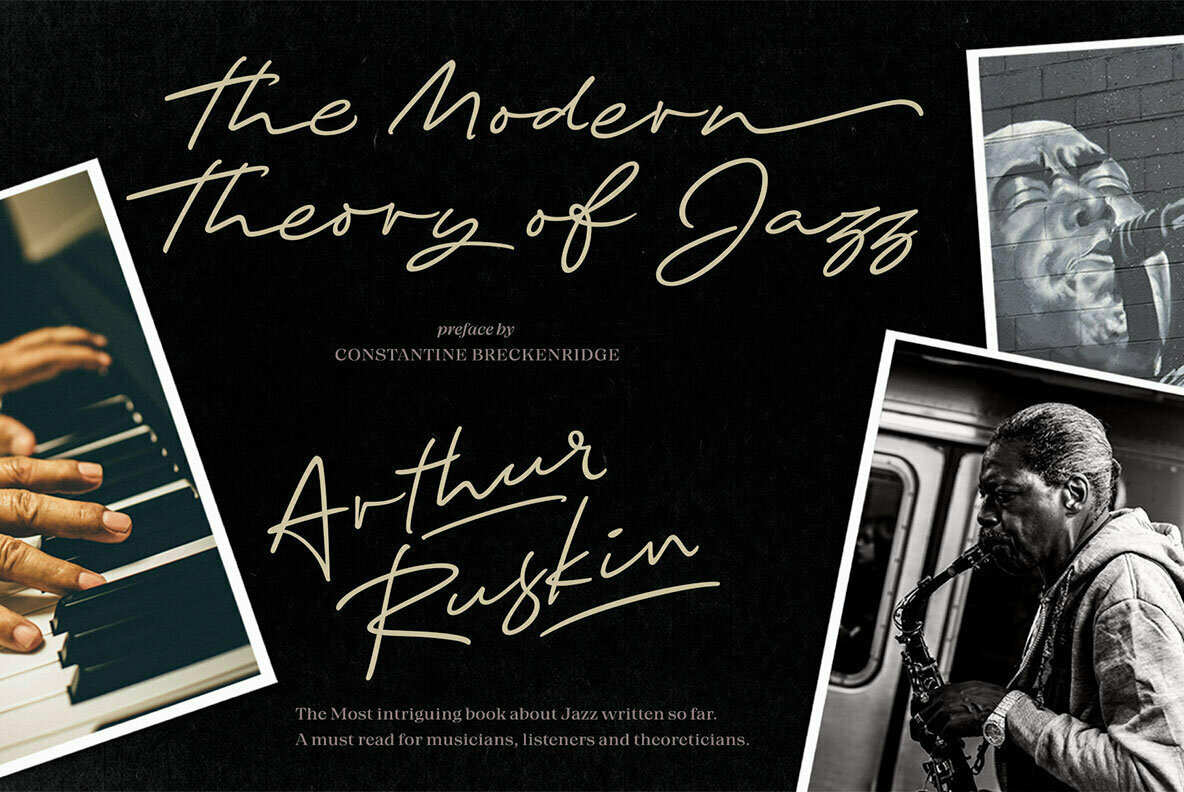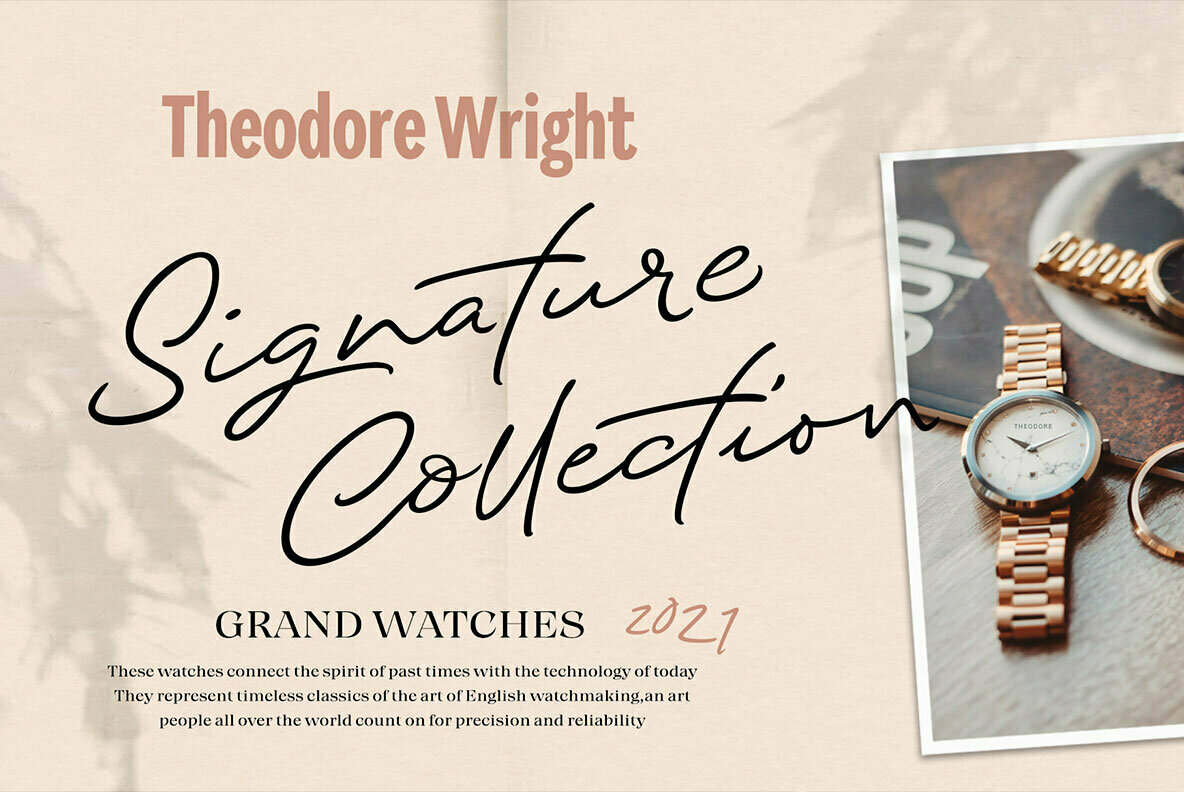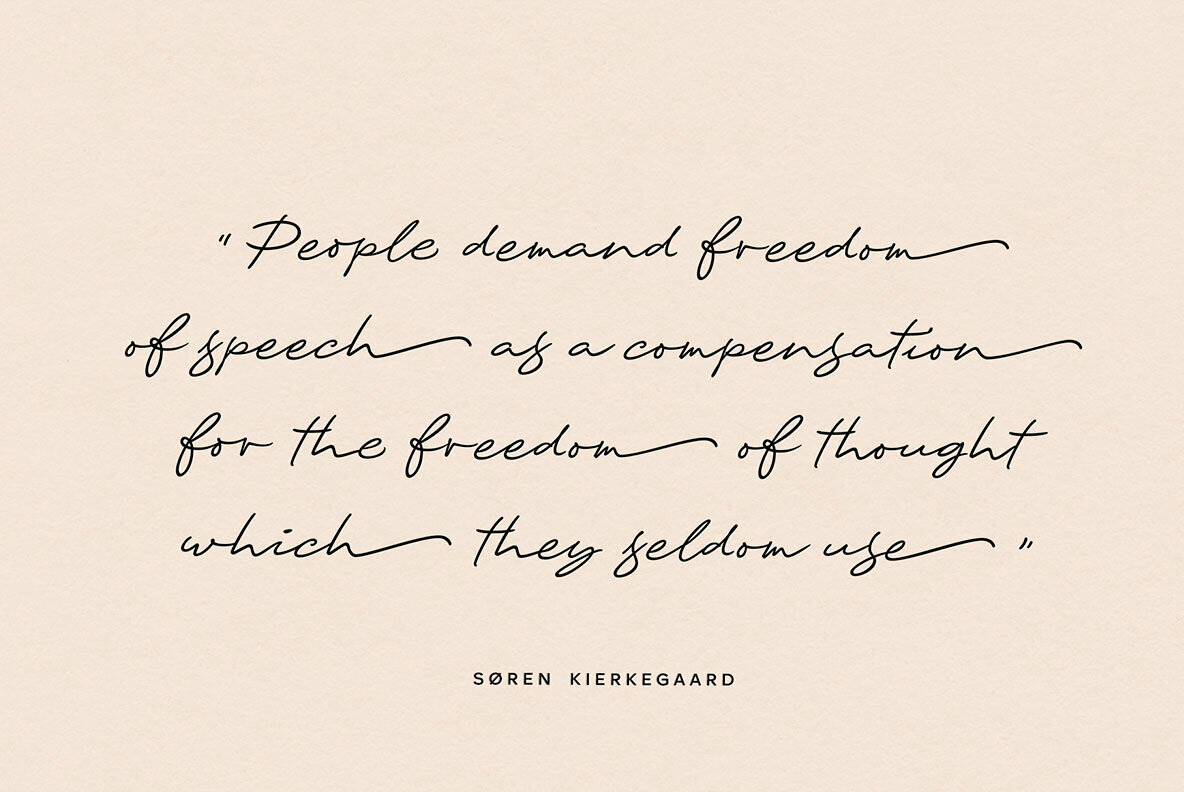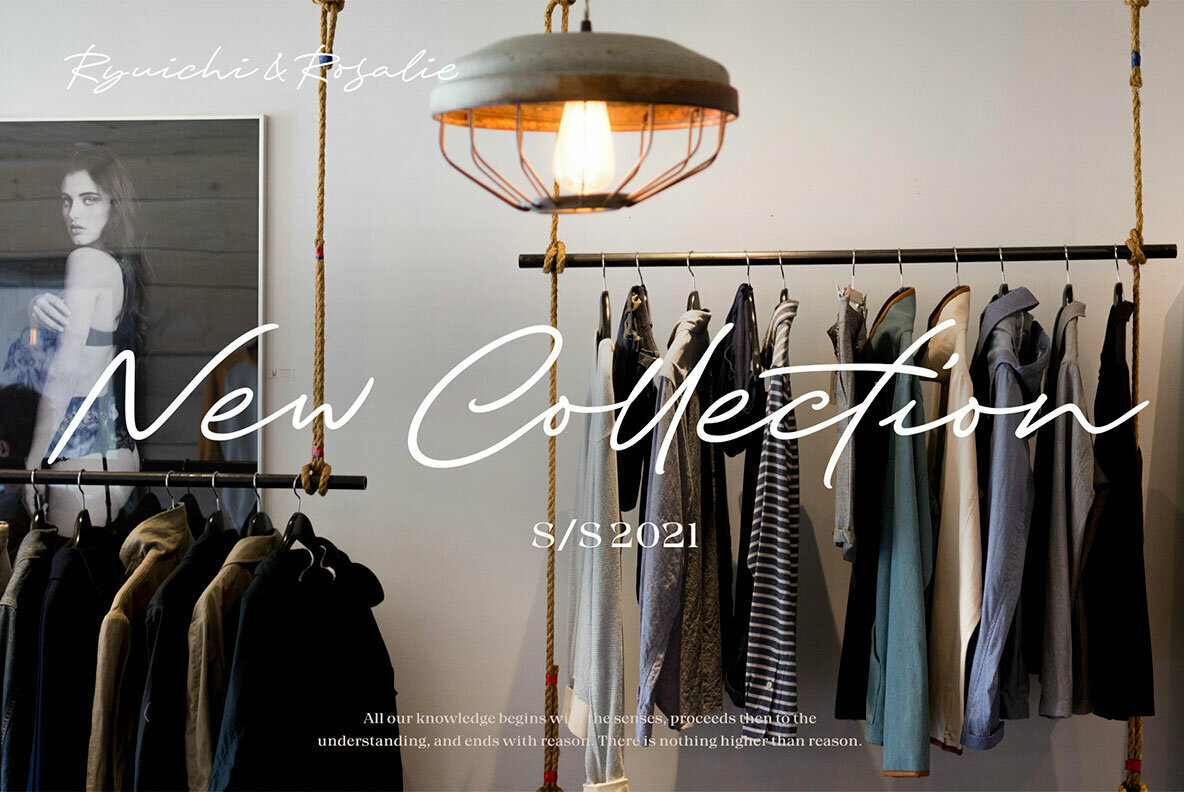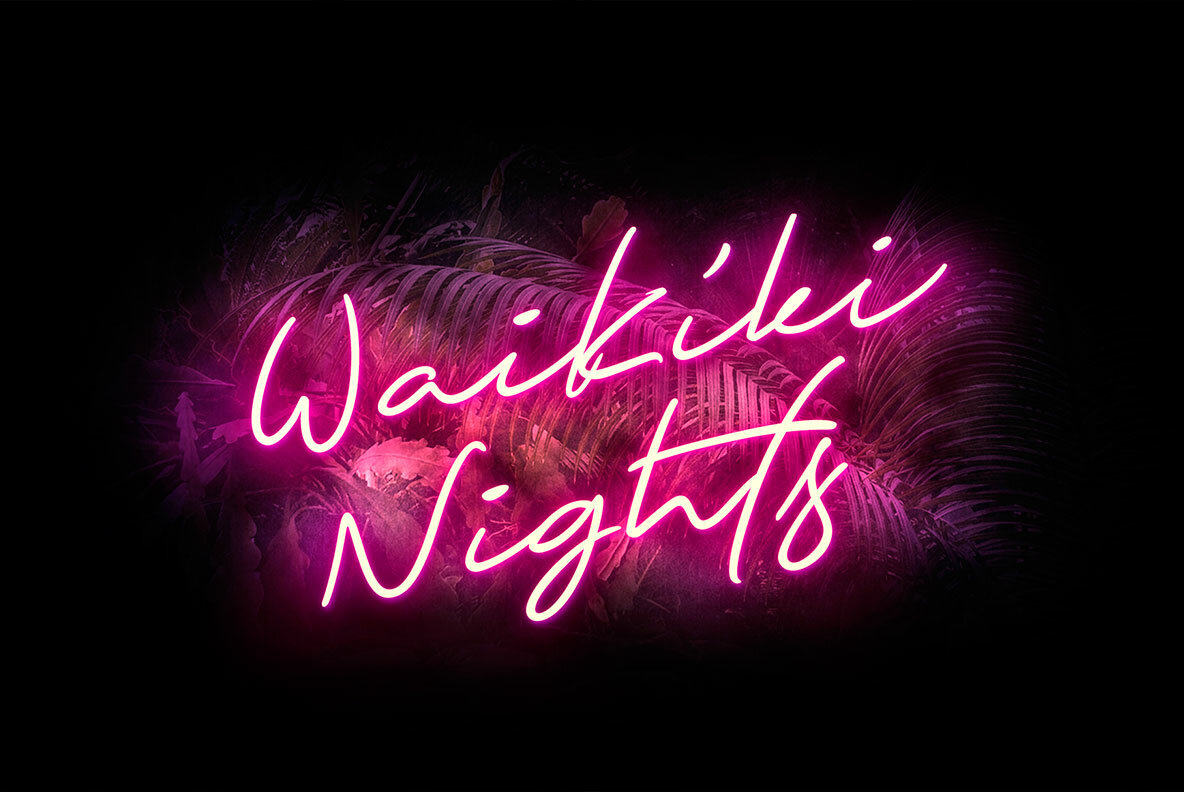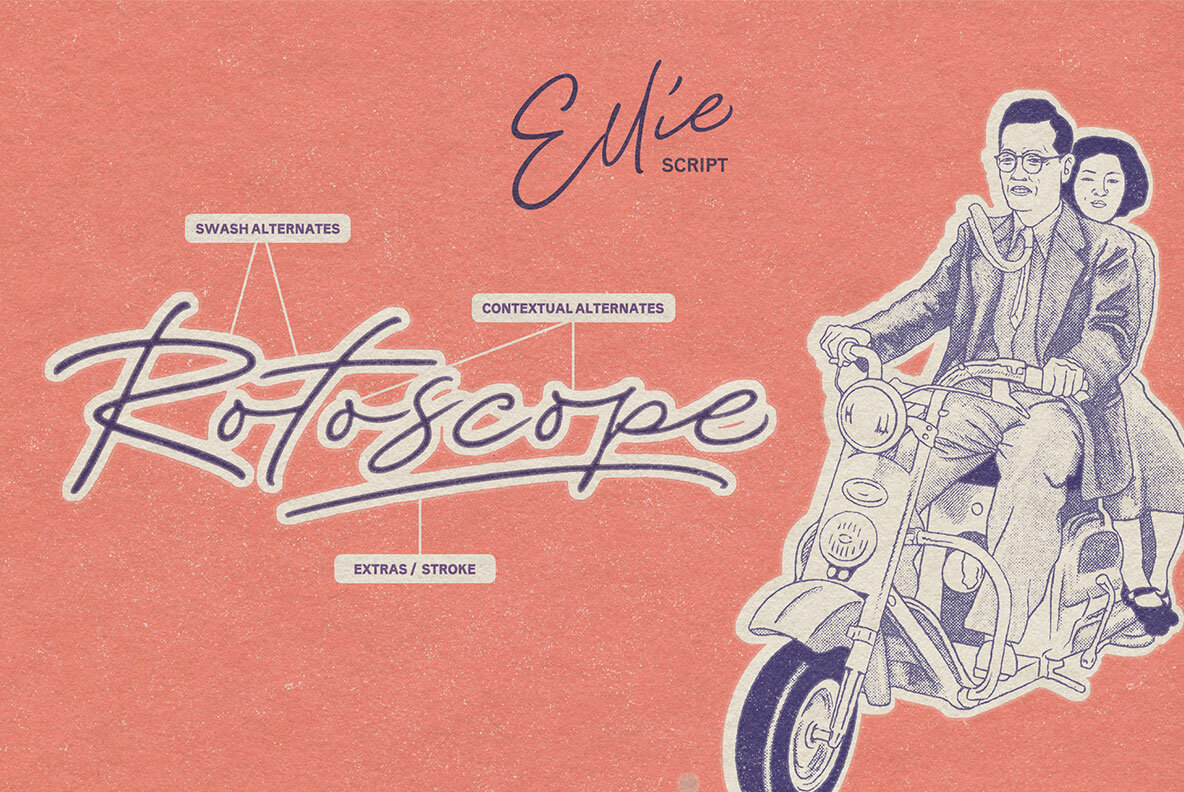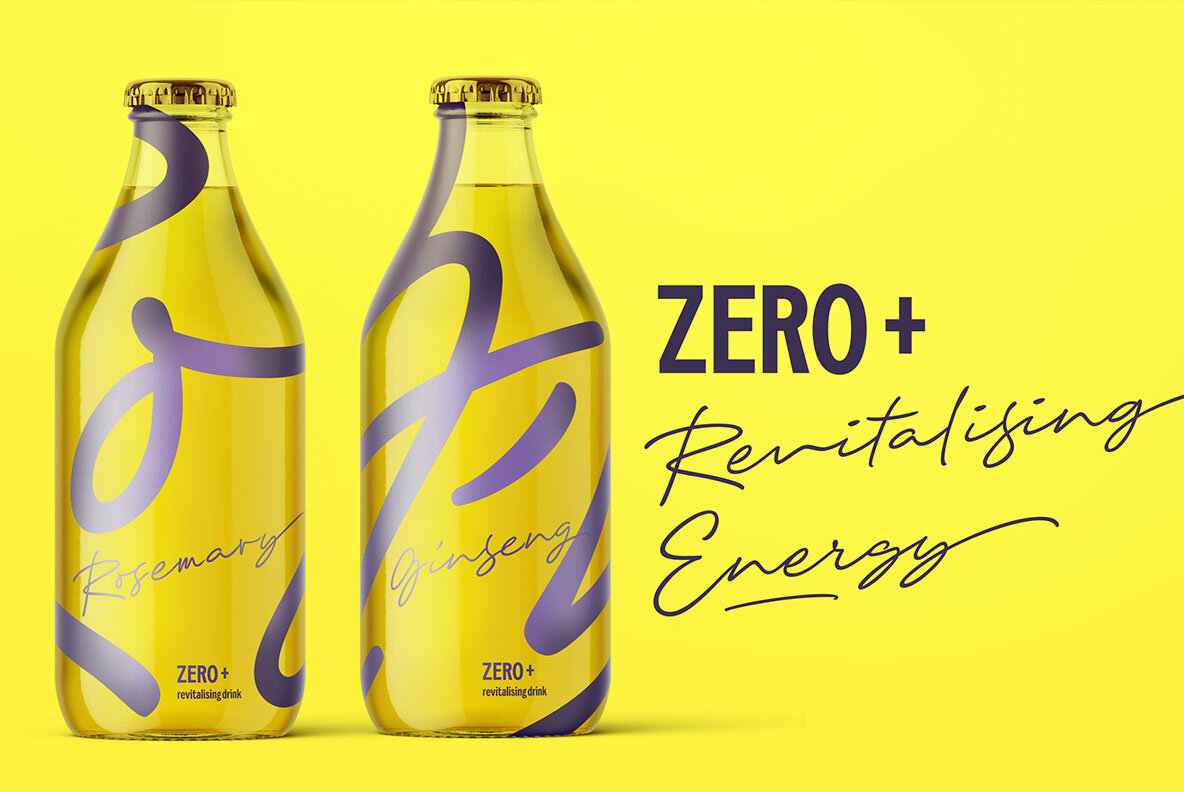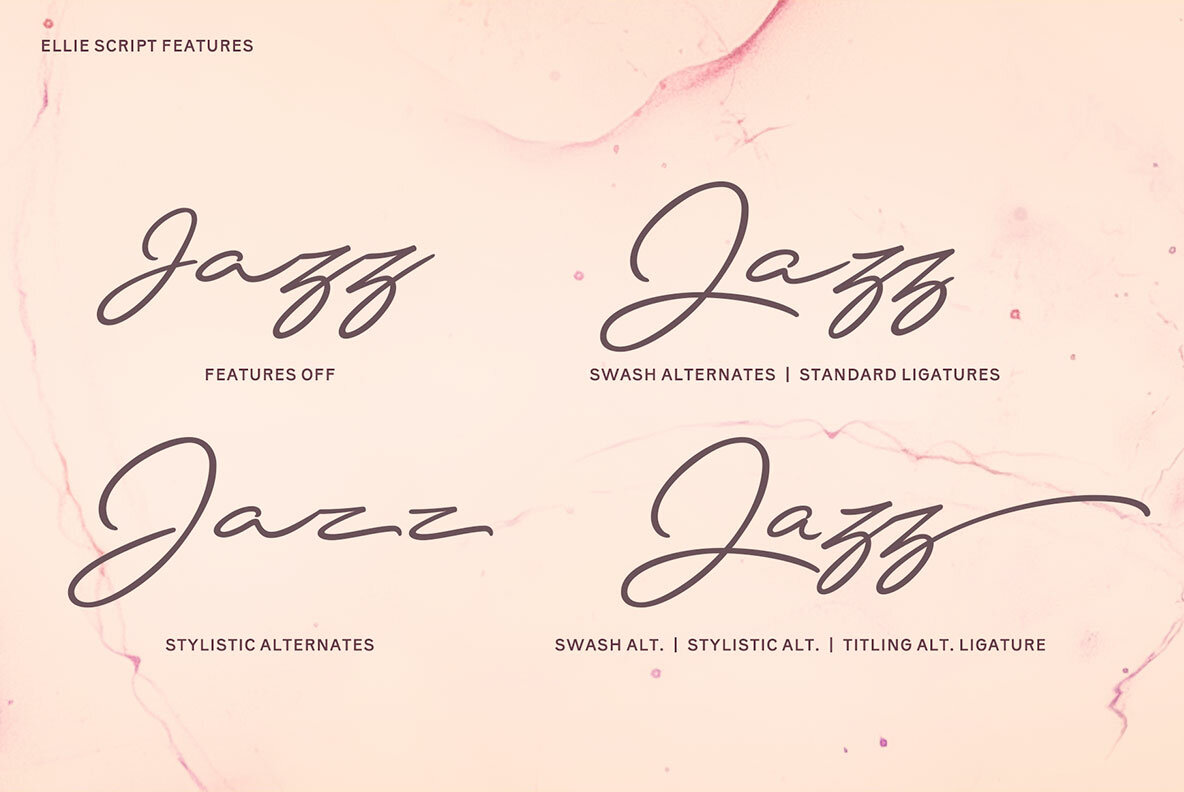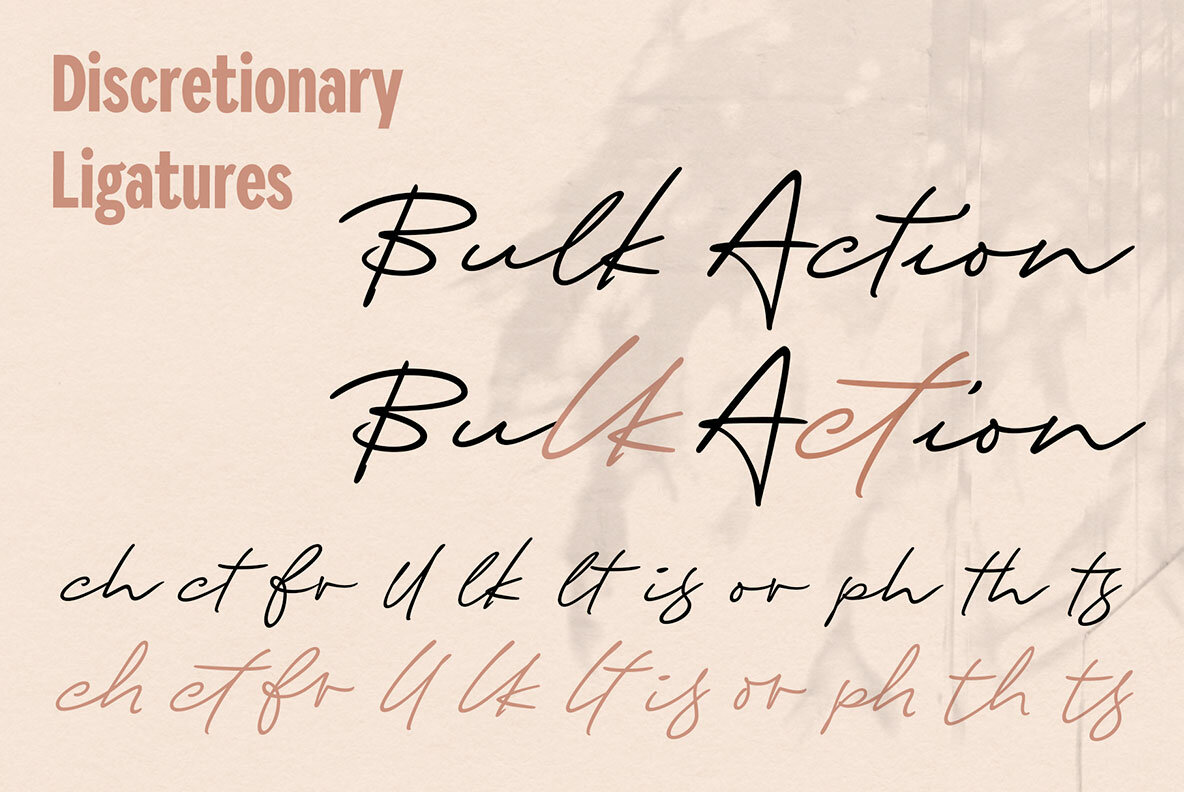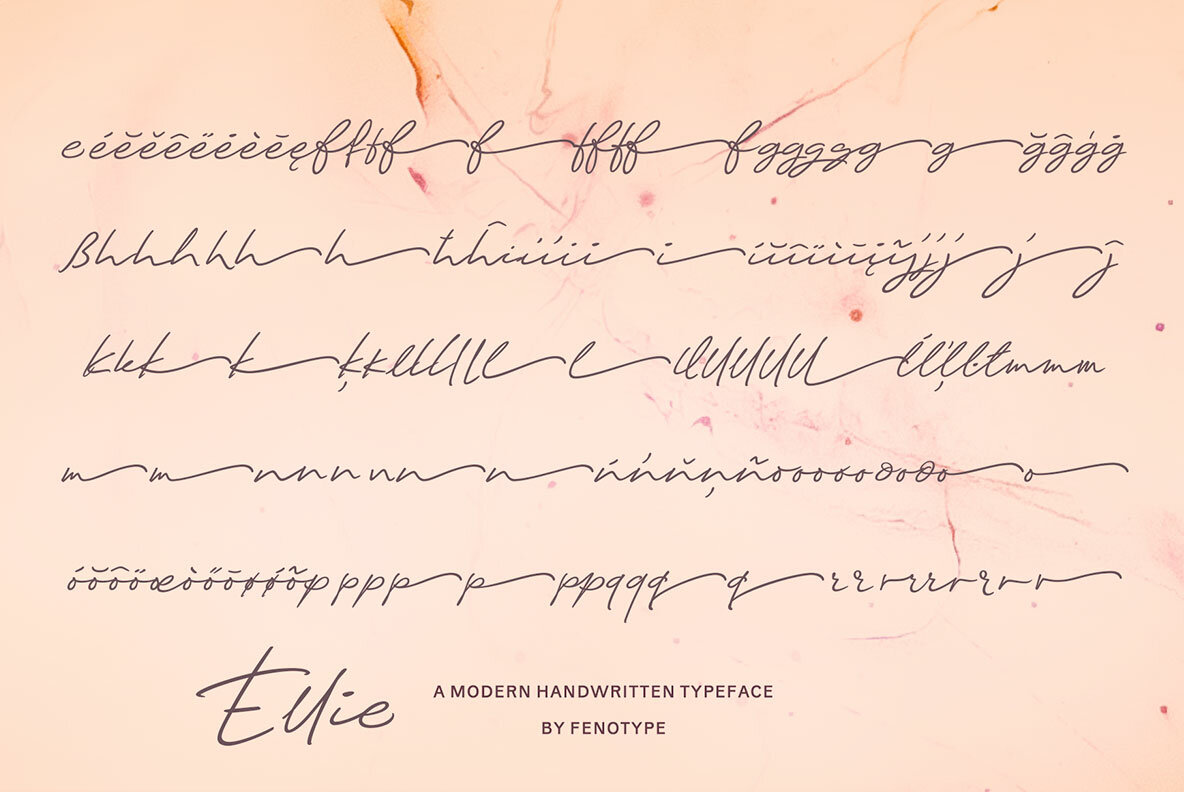
Ellie Script Font
Embrace the art of typography with Ellie Script, a hand-drawn typeface that brings a personal touch to your projects. Ideal for branding, headlines, invitation cards, and even poetry, this typeface adds character to any application, from posters to logotypes. Ellie Script impresses with over 600 glyphs and essential OpenType features designed for a natural look, including Contextual Alternates and Standard Ligatures that ensure seamless letter connections.Ellie Script: Hand-Drawn Elegance for Versatile Design
Features
Ellie Script is a versatile tool that lets you bring a hand-drawn touch to your graphic designs, offering the flexibility and creativity cherished by design professionals.